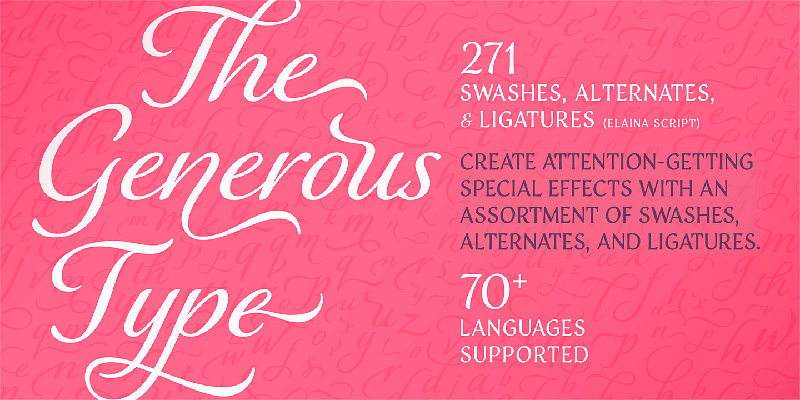
Elaina Font Free Download is an elegant, flowing script typeface that exudes sophistication and charm. With its graceful, sweeping letterforms and delicate strokes, this font is ideal for projects requiring a refined, hand-lettered look, such as wedding invitations, high-end branding, logos, and stationery.
Elaina Font Free Download brings a sense of warmth and personalized style to your typography. Its smooth, fluid curves create a timeless, romantic aesthetic that makes it perfect for upscale, elegant designs or any project that aims to evoke beauty and sophistication.
It pairs beautifully with serif or sans-serif fonts to add a touch of elegance to your layouts, making it perfect for both large headings and smaller text.